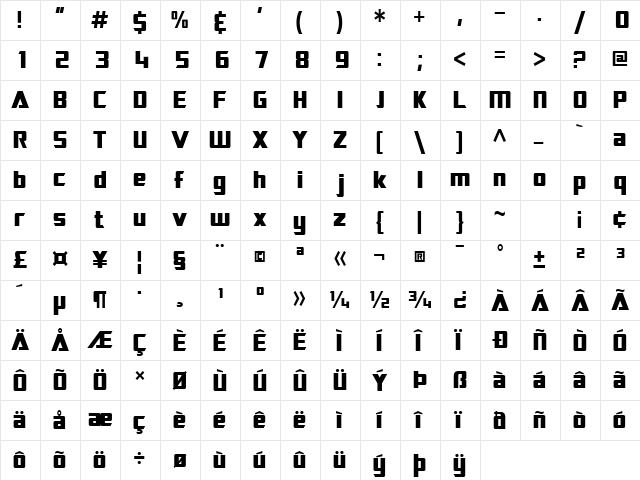
SF TransRobotics Condensed Regular
Design Context for SF TransRobotics Condensed Typeface
SF TransRobotics Condensed is a composed and adaptable typeface that performs quietly and consistently across a wide range of design contexts. Its narrow stance lets it pack a punch even in space-constrained designs.